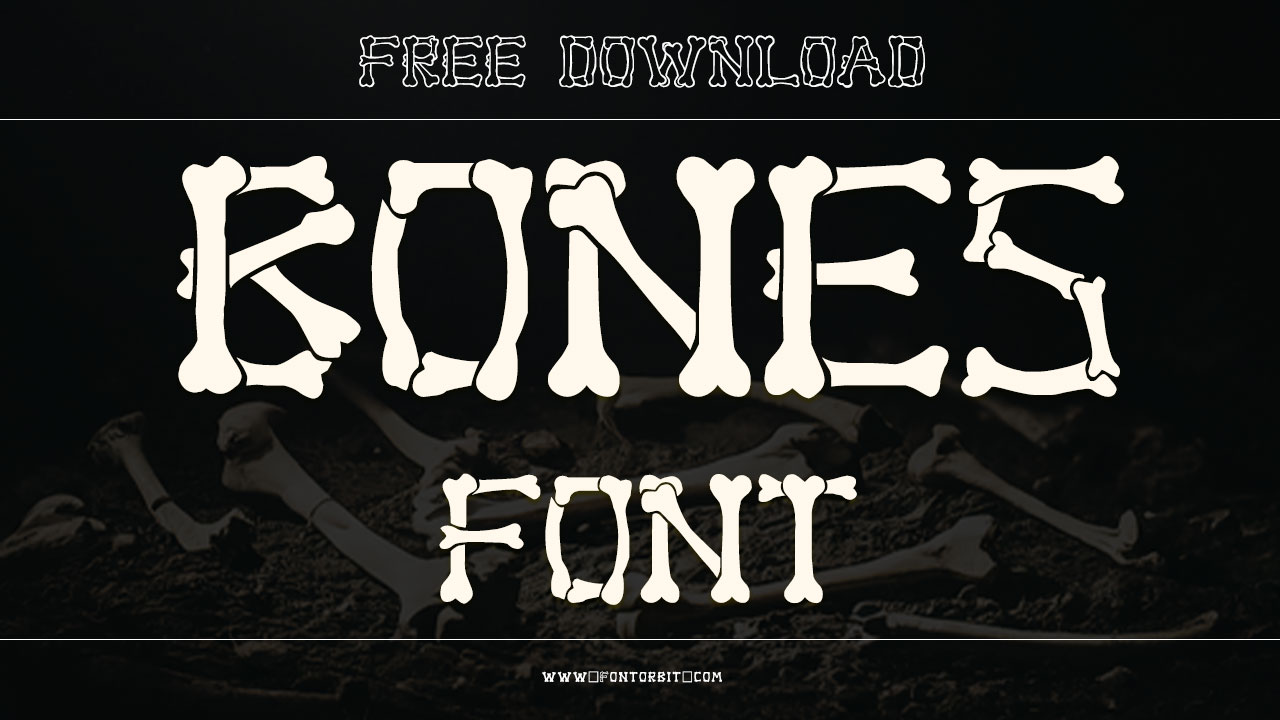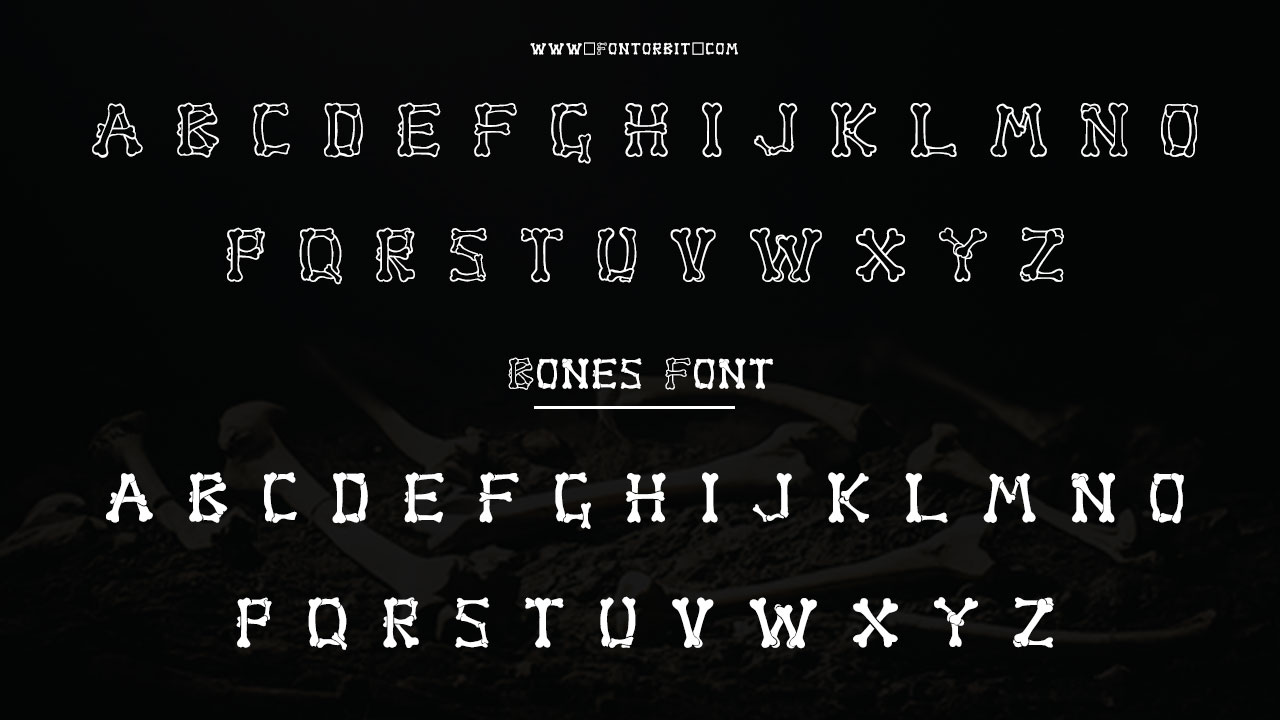
Bones Font is a creative typeface that has become popular in various design spaces. Designers often choose it to add a unique touch to their projects. The font family is linked to vintage, retro, and Halloween-themed designs. Its skeleton, pirate, and gothic style make it perfect for projects that need a bold, decorative flair.
The Bones Font is part of the Vozzy Vintage Fonts collection, known for its intricate and stylish letterforms. This font stands out due to its skeletal structure. Its design closely resembles the anatomy of bones, featuring skull-like shapes and dramatic curves. Its character map includes multiple ligatures, alternates, and special characters, making it versatile in various creative applications.
Bring Your Ideas To Life With The Bones Font
The Bones Font was designed by John Bones, a prominent figure in the typography world. He aimed to create a font that blends modern design with vintage charm. He focused on using skeleton and skull motifs to achieve this unique style. This design is ideal for Halloween designs, spooky graphics, and pirate-themed projects.
Font Style & Family
The Bones Font family offers several styles, such as Regular, Bold, Italic, and condensed versions. Its unique skeleton structure evokes pirate and gothic themes. This makes it perfect for adding an edgy, mysterious, and fun aesthetic to your designs. This font is designed for use in projects that need boldness and impact, such as posters, banners, and book covers.
Where To Use Bones Font?
As you explore the Bones Font for your designs, remember to consider its versatility and the types of projects it complements. Bones Font is a fantastic choice for a wide range of creative projects, including:
- Halloween Designs: This typeface’s spooky, skeleton-inspired features make it perfect for Halloween posters, banners, invitations, and other themed graphics.
- Book Covers: If you’re working on a thriller, fantasy, or mystery novel, this typeface will make a bold statement on book covers.
- Website Design: Use this decorative font to highlight titles, headers, or any text where you want to make an impact on a website.
- Logos: If you want to add a touch of vintage or pirate theme to your brand, Bones Font can help create a unique and memorable logo.
- Posters & Banners: The large, striking letters work well for event promotions, movie posters, and advertising banners.
- Creative Projects: Designers can experiment with various ligatures and alternates in this font to create personalized and artistic designs, from posters to graphics.
Font Pairing Options
When pairing the Bones Font, balance its boldness with something more subtle. This helps maintain readability while preserving the creative appeal. Try pairing it with a modern sans-serif font like Montserrat. Alternatively, you can use a refined serif font like Playfair Display. These pairings complement the strong, rugged skeleton theme. At the same time, they ensure the text remains clear and readable.
If you’re looking for fonts similar to Bones Font, here are some options to consider:
- Skull Fonthttps://www.1001fonts.com/skull-fonts.html: A more direct alternative, this font also features skulls and bony structures, ideal for spooky designs.
- Pirate Font: Inspired by the rugged pirate theme, this font has a similar vintage and adventurous style.
- Western Fonts: Fonts like “Cowboy” or “Wanted” may have a similar feel, combining old-school type with decorative letterforms.
Styles And Theme
Bones Font has a rugged and bold style, perfect for designers looking for something that feels both vintage and rebellious. Whether it’s for a banner or a Halloween invitation, the bones, skull, and skeleton motifs set it apart from other decorative fonts.
With its strong visual impact, it’s perfect for projects that need an element of danger, mystery, or Halloween-inspired flair. It’s important to know that while the font is dramatic, its various styles and alternates give it flexibility for different design needs.
1.What Is Bones Font?
Bones Font is a decorative typeface featuring skeleton, skull, and bone-inspired letterforms, ideal for Halloween and pirate-themed designs.
2.Who Designed The Bones Font?
Bones Font was created by John Bones, a designer known for his vintage-inspired and bold typefaces.
9.What Makes Bones Font Stand Out?
Its skeleton, skull, and pirate-themed design make it unique and perfect for projects that need a bold, vintage, and spooky aesthetic.
10.Are There Any Similar Fonts To Bones Font?
Similar fonts include Skull Font, Pirate Font, and various Western Fonts that feature rugged and vintage elements.